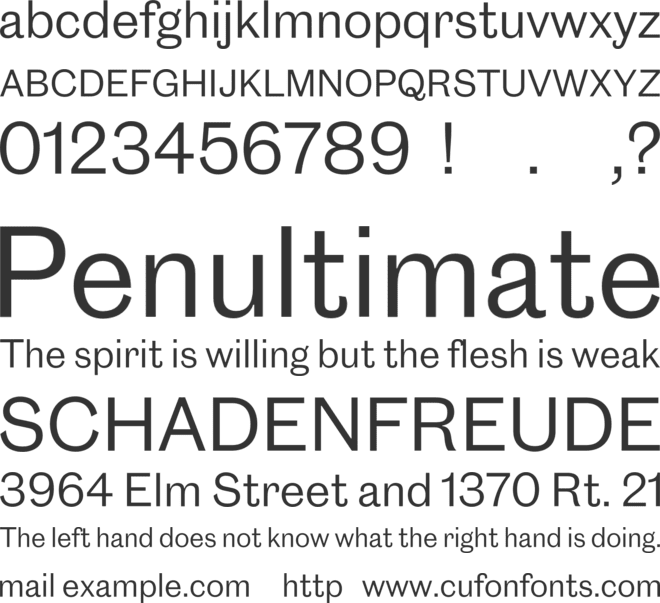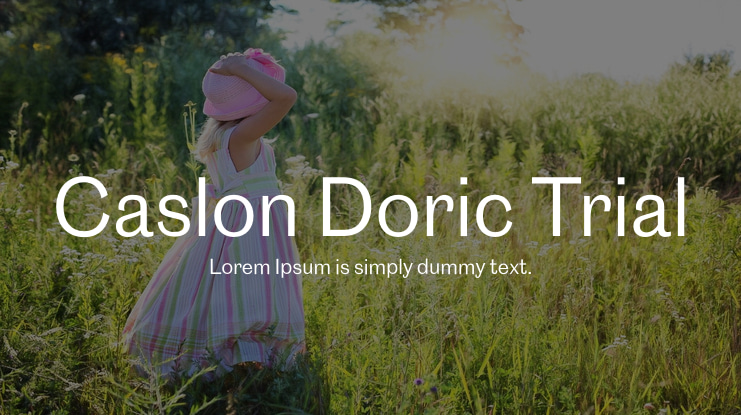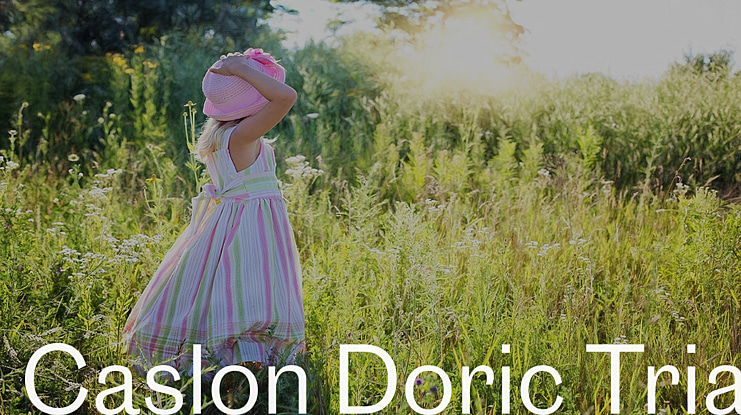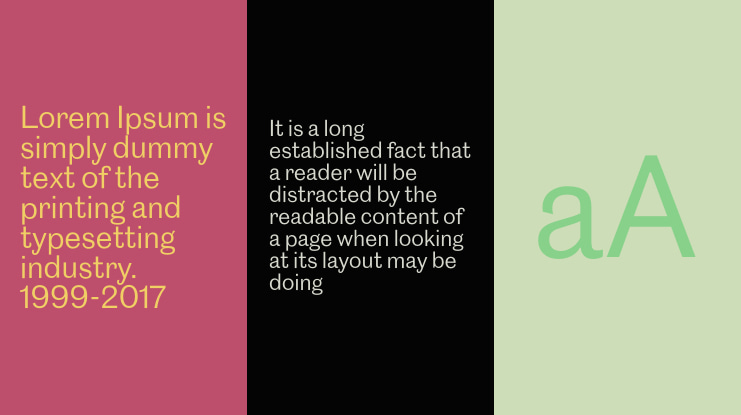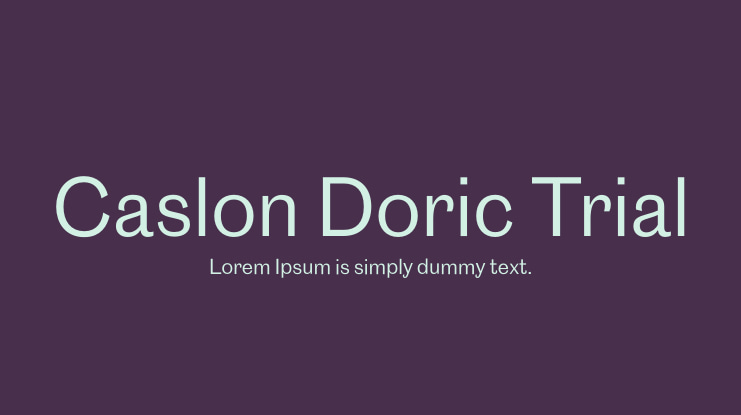
This font designed by Paul Barnes is a nineteenth century sans serif given the rigour, consistency and rationality of a modern sans family: of multiple weights, in multiple widths with matching italics, yet maintaining the charm of the original. As Brunel is the serif form we associate with this period, so Caslon Doric is the equivalent sans. After William Caslon IV, originated the sans type form in the second decade of the 19th century, the style initially stalled, and only in the 1830s did the form gain popularity. First in an all bold capital form, Caslon introduced the Doric form in the 1840s, before expanding the style throughout the century, finally adding a lowercase which we would recognise in the 1870s. From the original regular weight the modern Caslon Doric expands from a fine hairline weight to an emphatic fat weight, with matching italics and small capitals. With its distinctive hook like terminals it has the utility of the sans form whilst having a distinctive quality and is suitable for text and display setting.